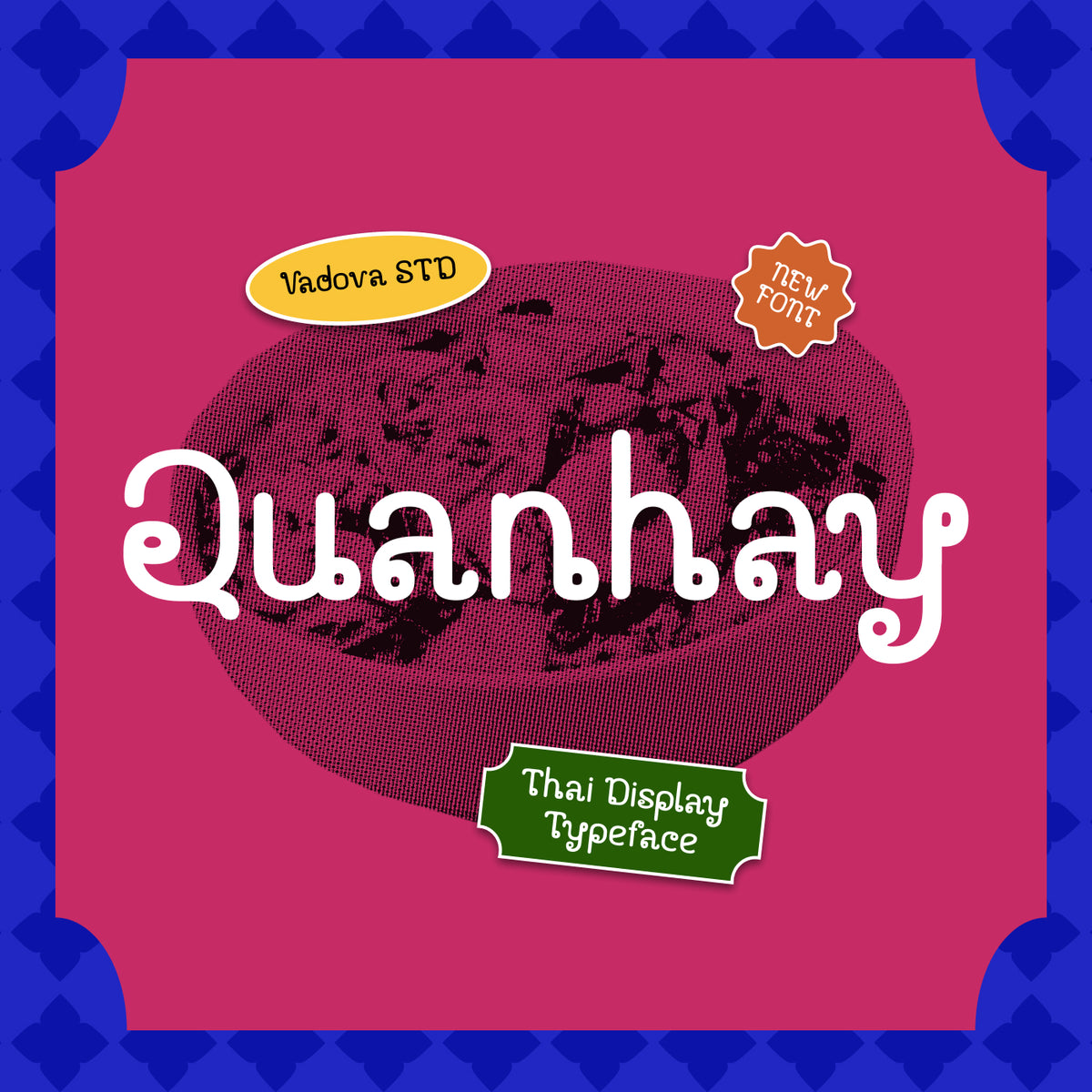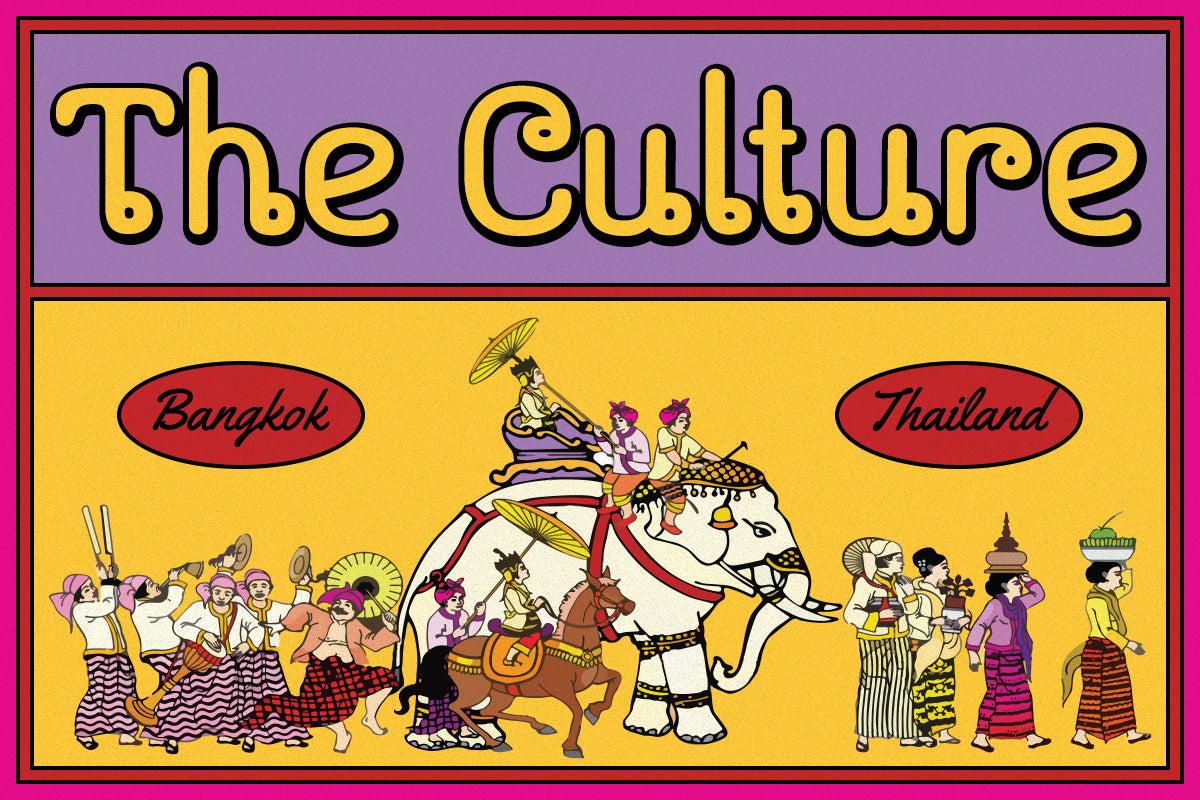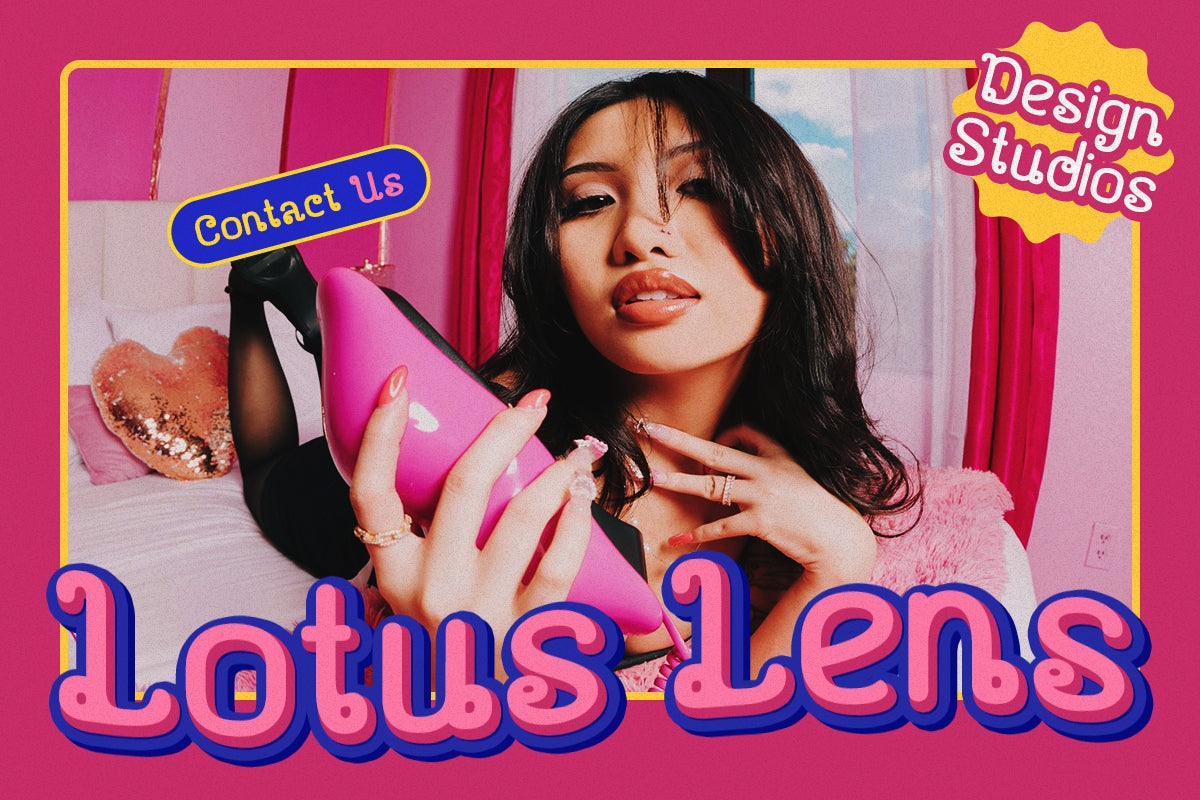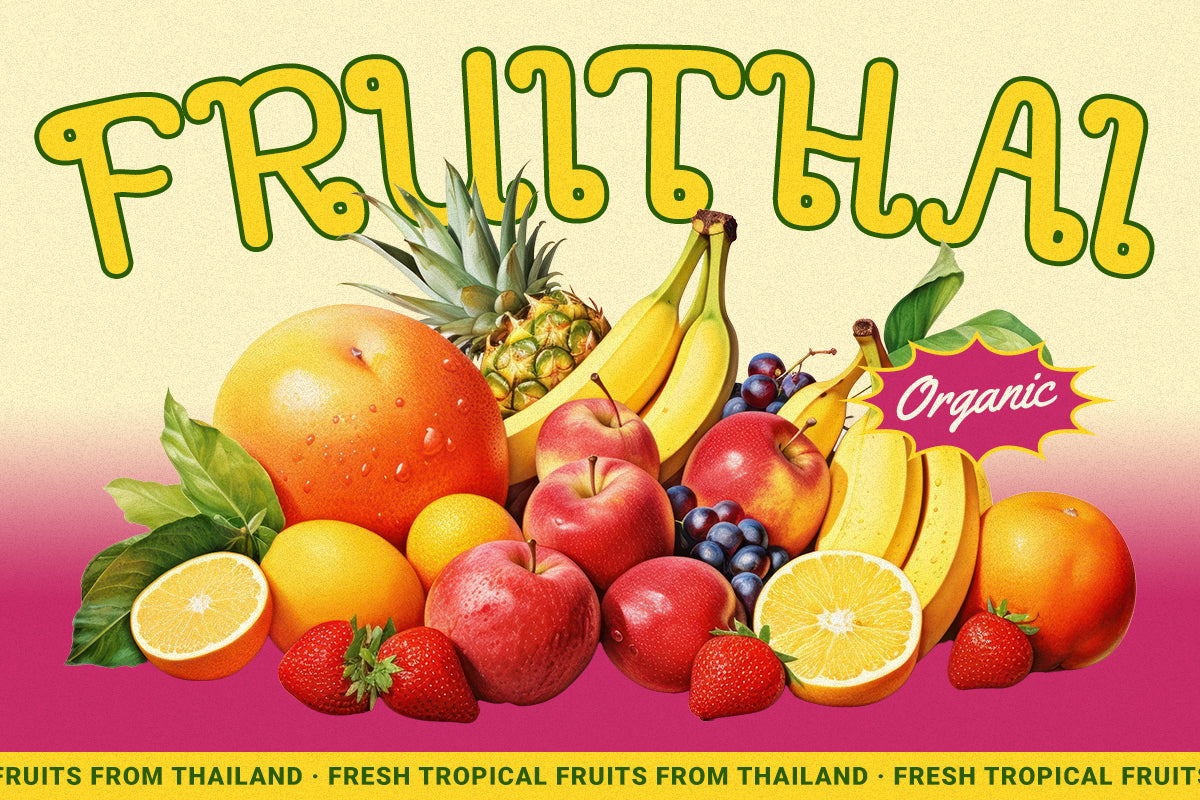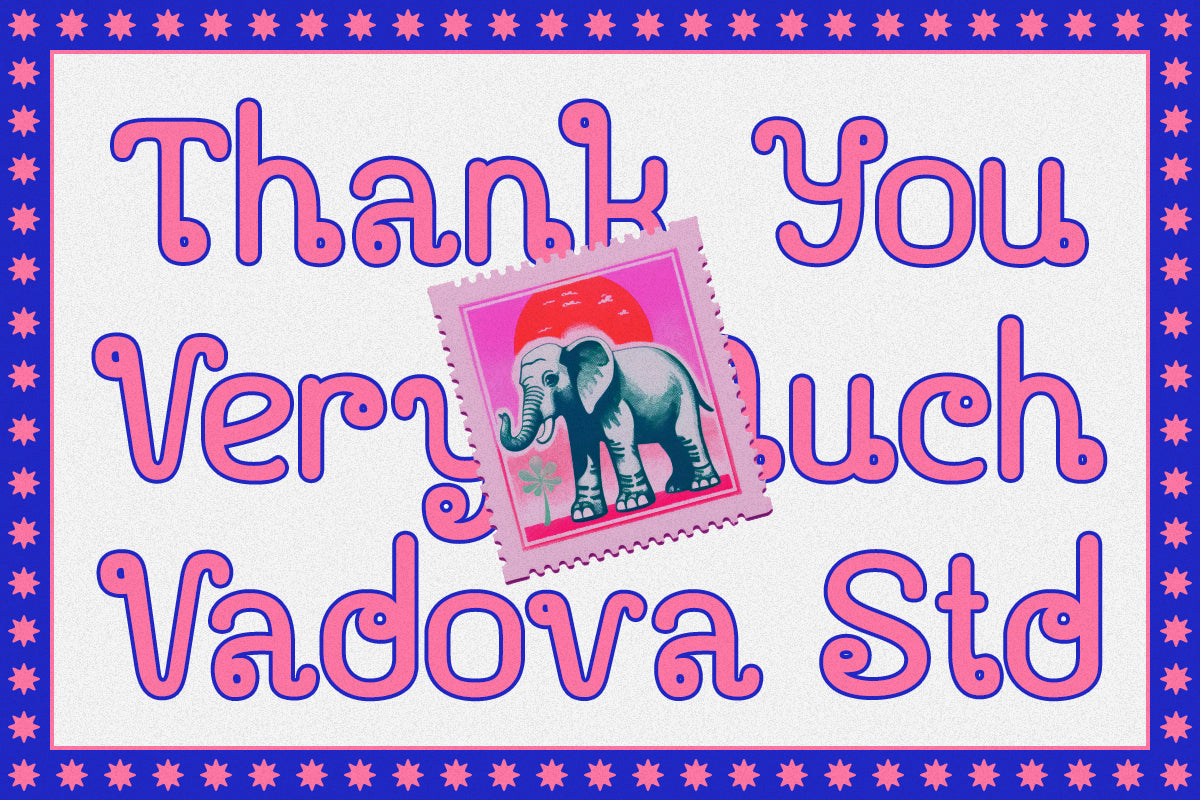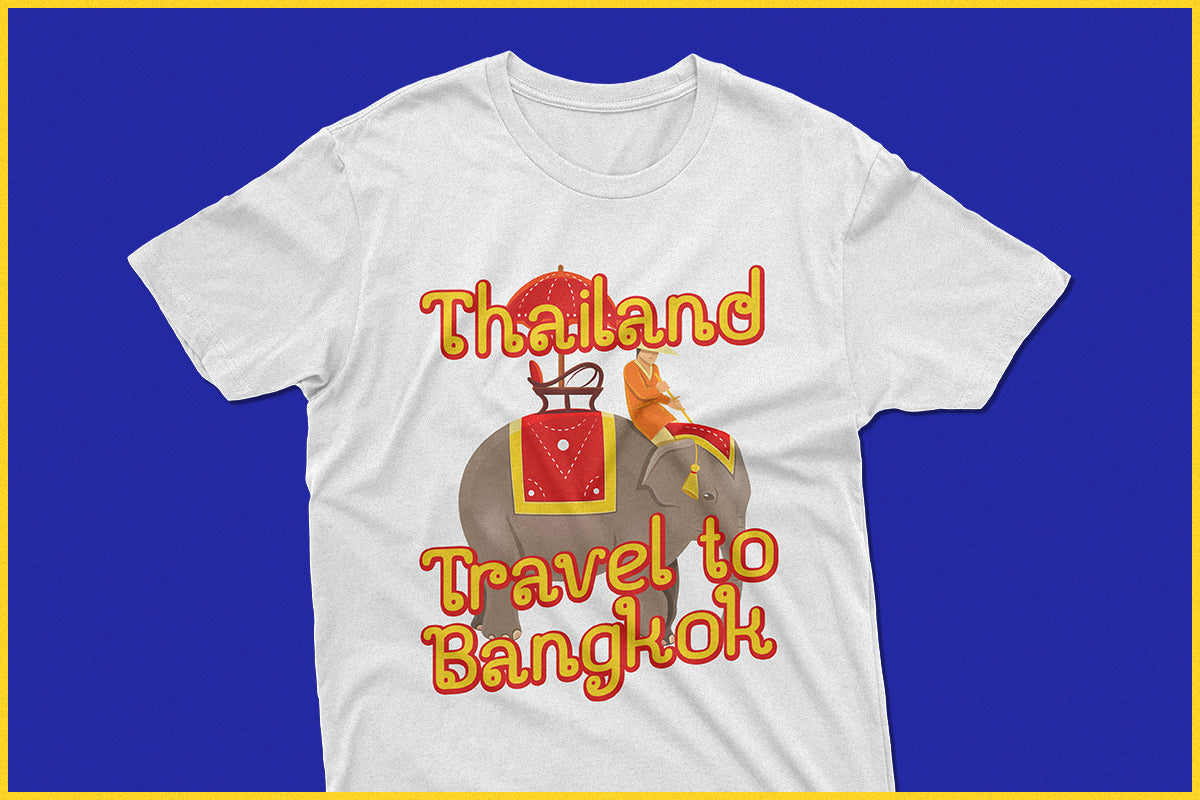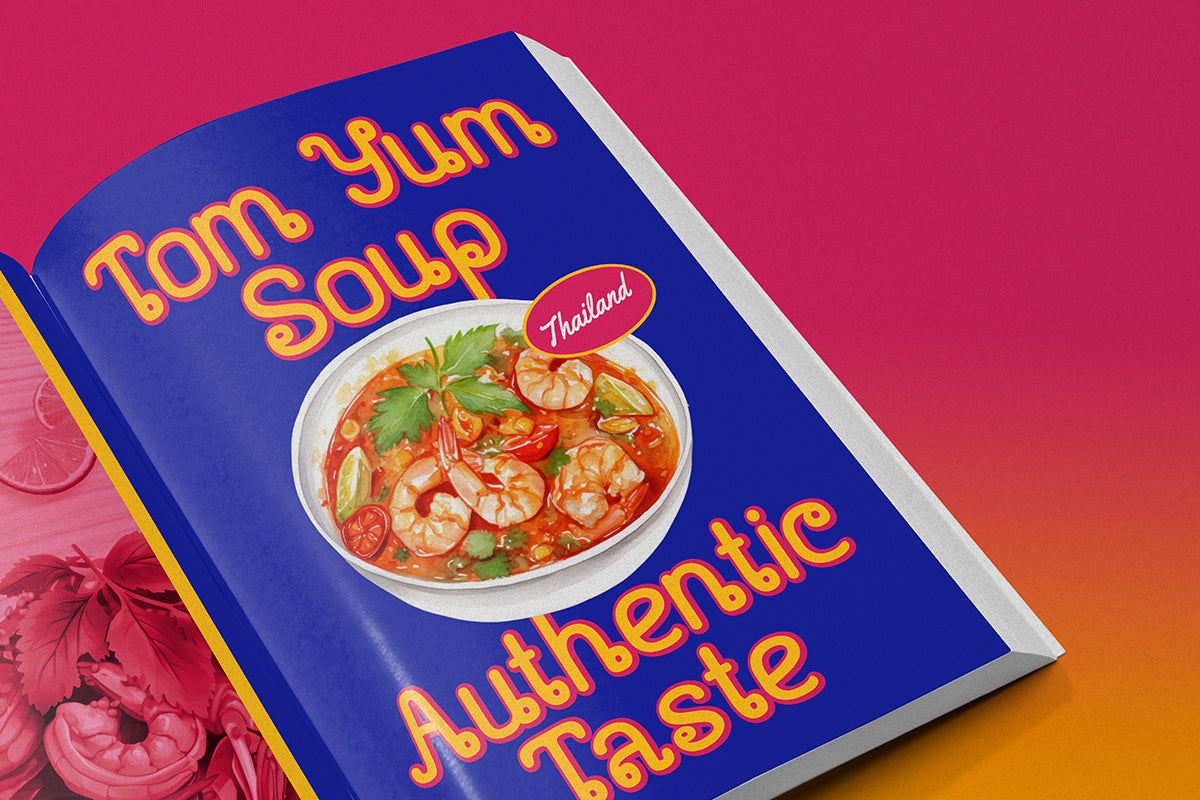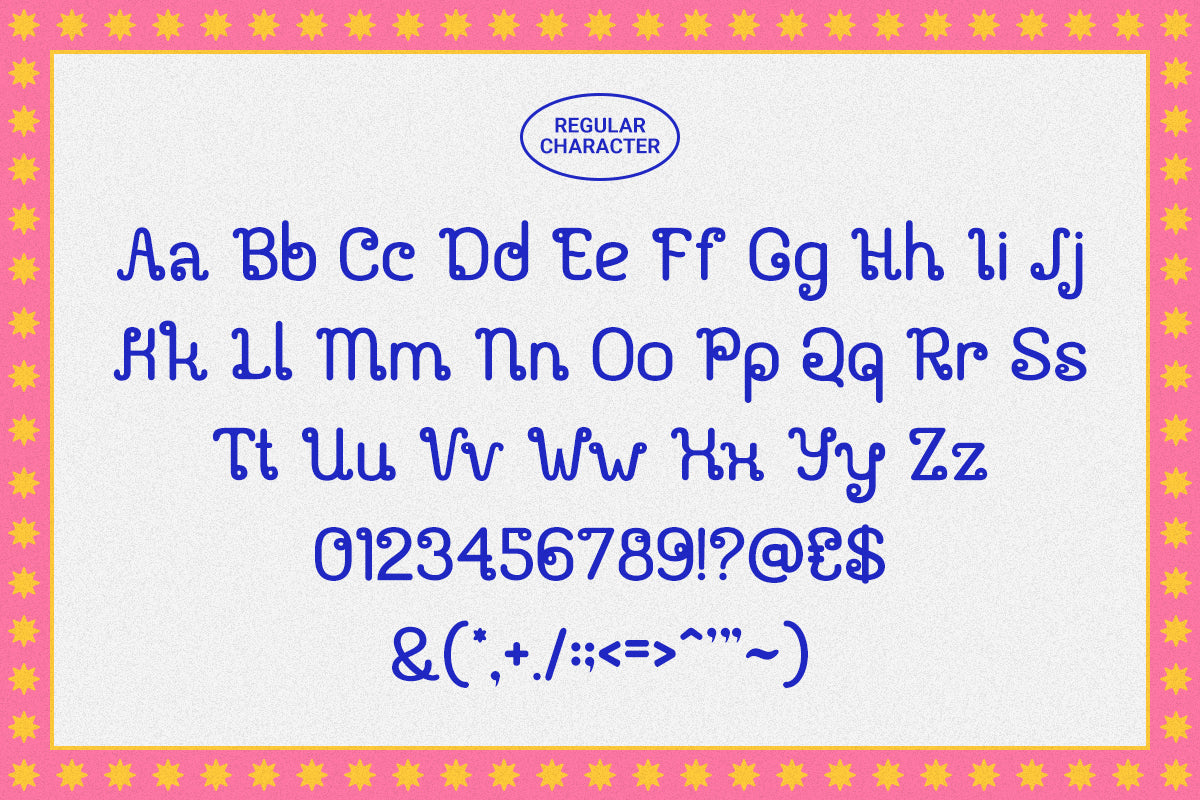
Quanhay Thai Display Typeface Font
Quanhay is a delightfully playful and quirky Thai-style typeface that exudes a friendly and inviting energy. Its unique, rounded letterforms, inspired by the distinctive loops and curves of Thai script, give it a cheerful and approachable vibe. This font is perfect for designs aiming to convey a sense of fun, cultural warmth, and creative individuality, making it instantly memorable and engaging.
Quanhay Suitable for is incredibly versatile, ideal for creating joyful branding and playful logos, especially for food and beverage businesses or children's products. It excels in headlines, making them pop in posters, advertisements, and digital banners. Perfect for educational materials, and tourism promotions, it also suits restaurant menus, event invitations, and social media graphics, ensuring a cheerful and memorable visual presence across all platforms.
Quanhay is a Thai-style display typeface featuring rounded letterforms inspired by Thai script. It includes uppercase and lowercase characters, numerals, and punctuation, and is available in TTF, OTF, and WOFF formats.